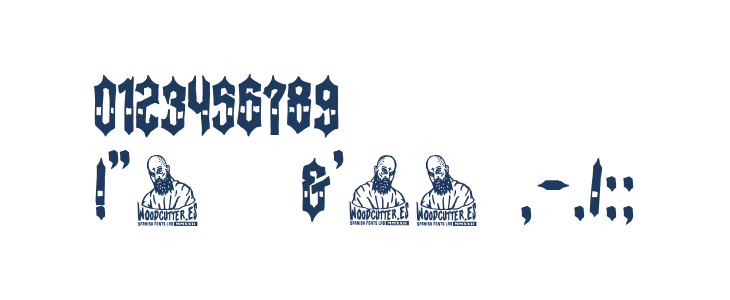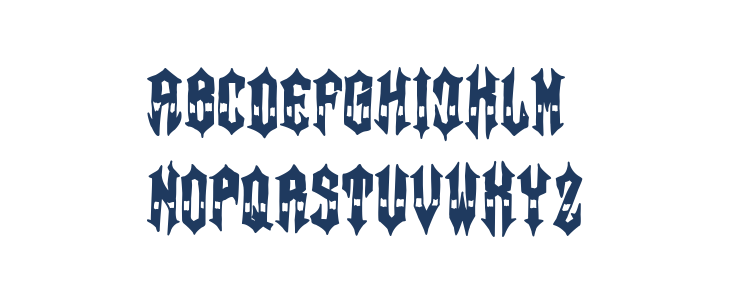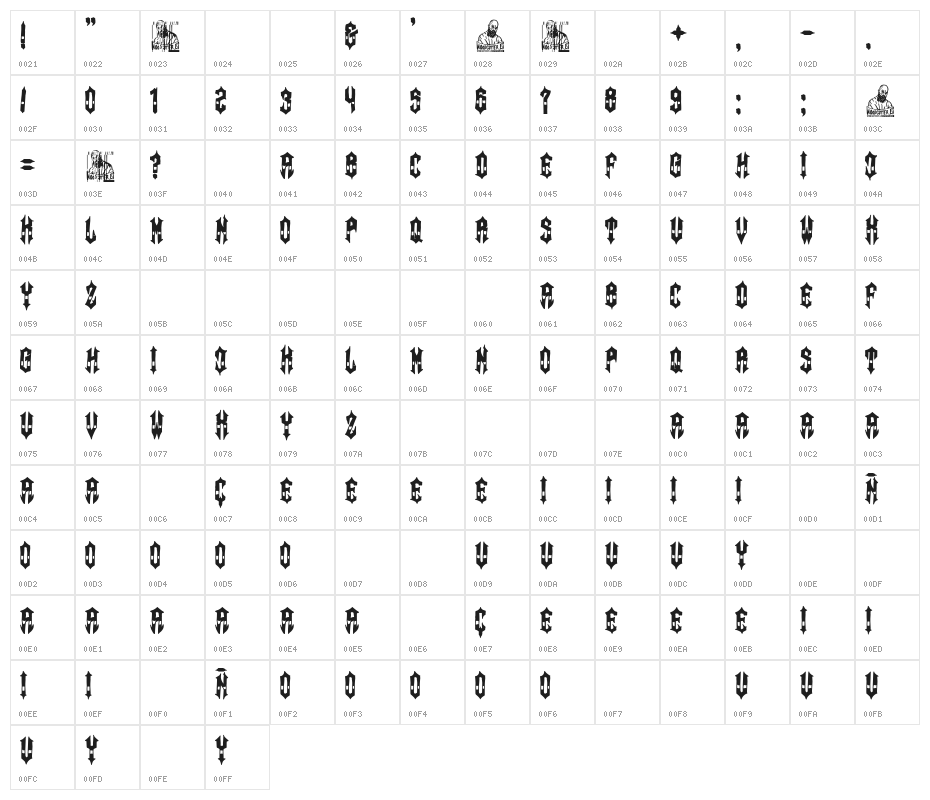
Heavy Metal Font
| Overall Style | Decorative, Gothic, Heavy Metal |
| Use Case | Logos, Headlines, Posters, Themed Events |
| Proposed Projects | Band logos, concert posters, album covers, horror or metal-themed graphics, event branding. |